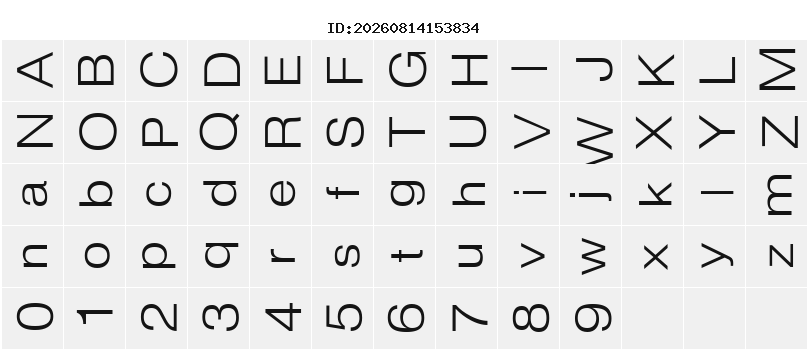
StraitSide Preview
• Font Name: StraitSide
• Full Font Name: StraitSide
About StraitSide.ttf
StraitSide.ttf is a modern, elegant sans-serif font designed for ultimate readability and visual harmony. Perfect for branding, headlines, web design, and print materials.